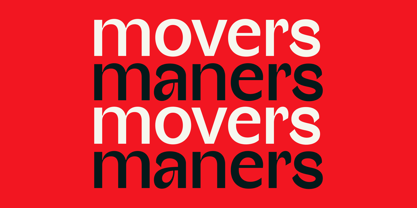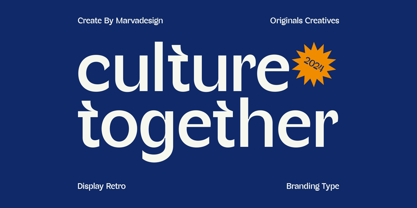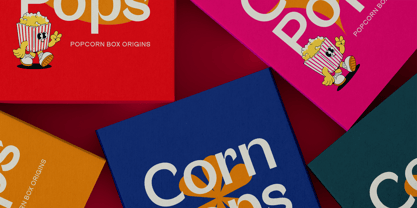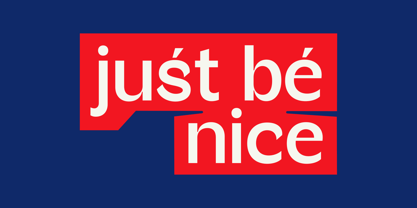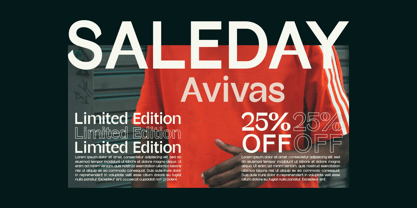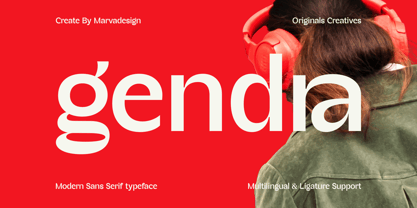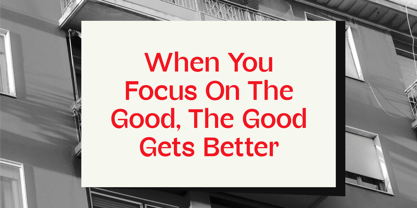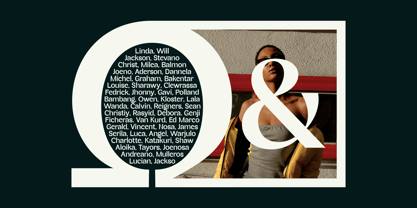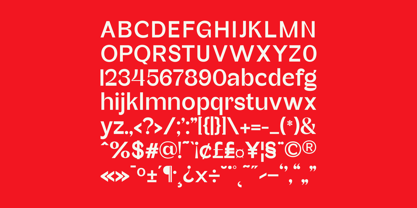
Gendra
by Marvadesign
The Gendra Font Family was designed by Febrie Setiawan and published by Marvadesign. Gendra contains 1 styles. More about this family
Introducing Gendra is a modern sans-serif font characterized by its clean and minimalist design. It features a regular style with unique touches in several lowercase characters, giving it a distinctive and contemporary feel. This font is versatile and works well for branding, sale posters, product designs, and various creative projects. Its sleek and stylish appearance makes it an excellent choice for professionals seeking a modern and impactful typeface.
Designers: Febrie Setiawan
Foundry: Marvadesign